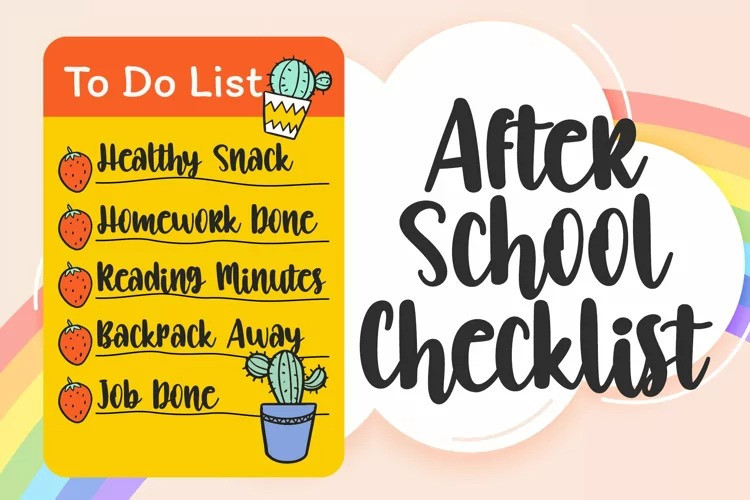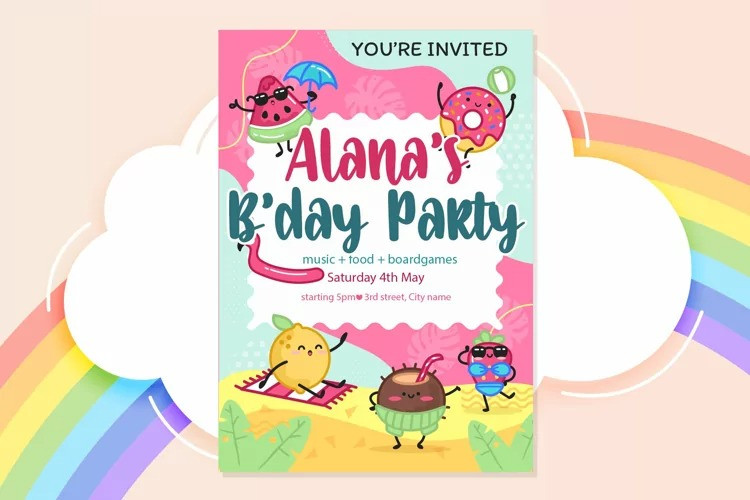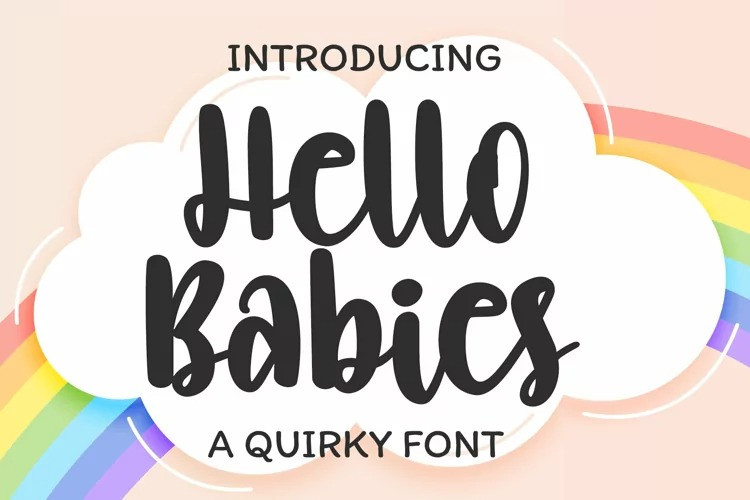
Hello Babies Font
Hello Babies Font is a quirky and laid-back handwritten font. Whatever the topic, this font will be a wonderful asset to your font library, as it has the potential to enhance any creation. Hello Babies is PUA encoded which means you can access all of the amazing glyphs and ligatures with ease!